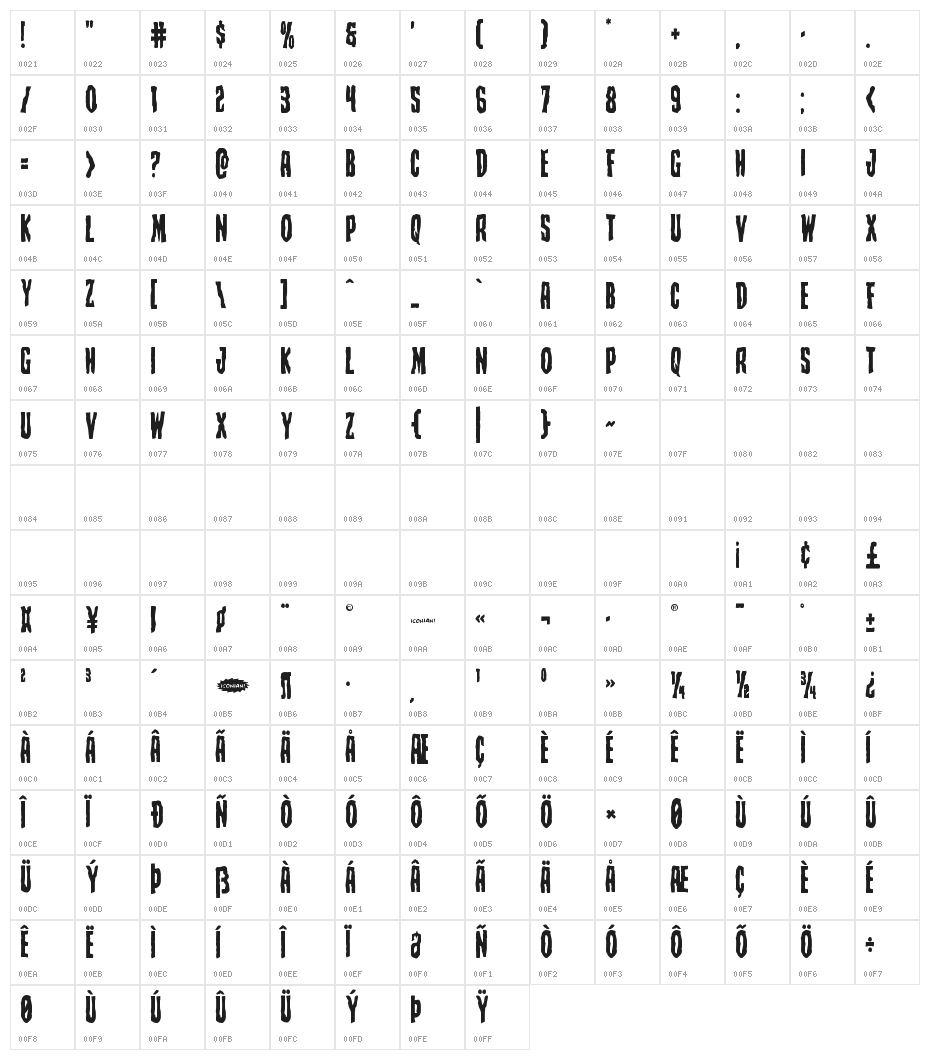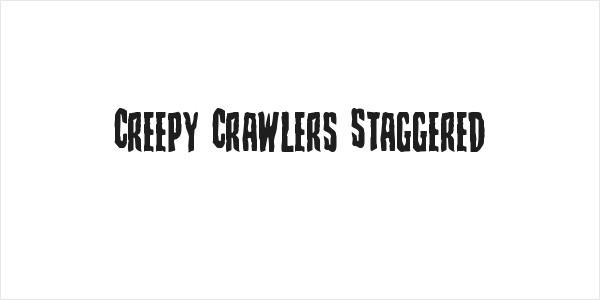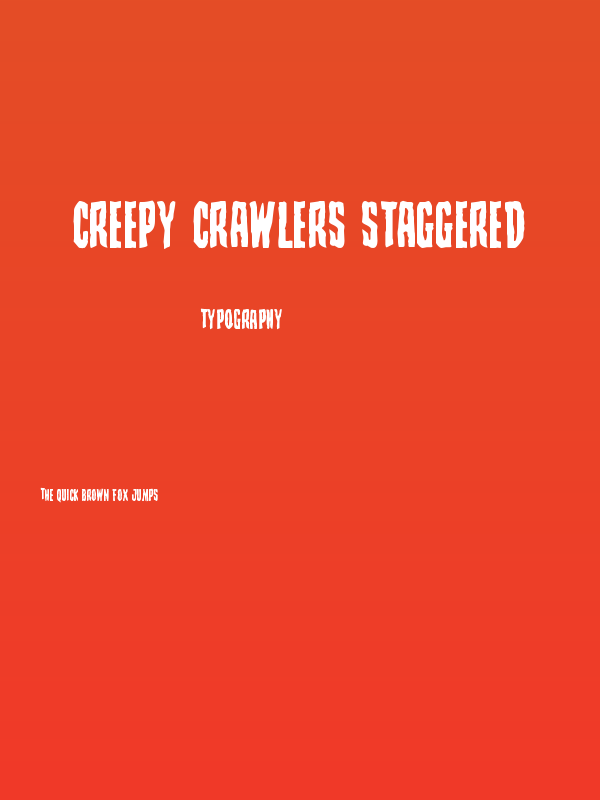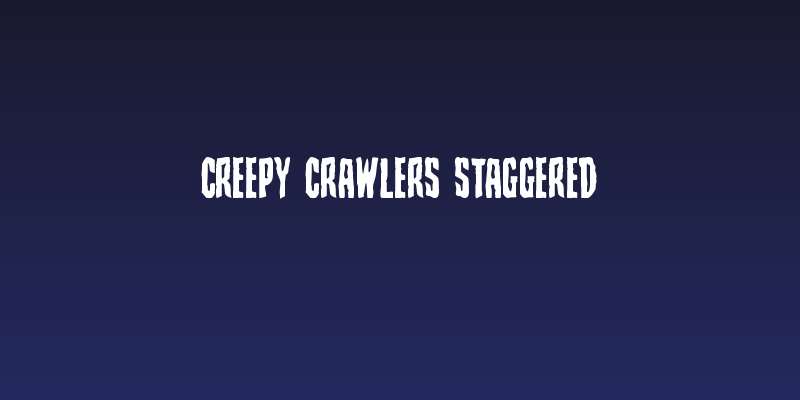
Creepy Crawlers Staggered Font
This font features a bold, jagged style that evokes a sense of eerie, unsettling movement, reminiscent of creepy crawlers. The characters have an irregular, staggered appearance, with uneven edges and a slightly distorted form, giving them a unique, hand-drawn look. The uppercase letters are particularly striking, with exaggerated curves and angles that enhance the font's dramatic effect. The numbers and special characters maintain this theme, ensuring a cohesive design throughout. This font is ideal for projects that require a spooky or horror-themed aesthetic, such as Halloween decorations, movie posters, or themed event invitations.
| Proposed Projects | Ideal for Halloween decorations, horror movie posters, themed event invitations, and spooky branding. |